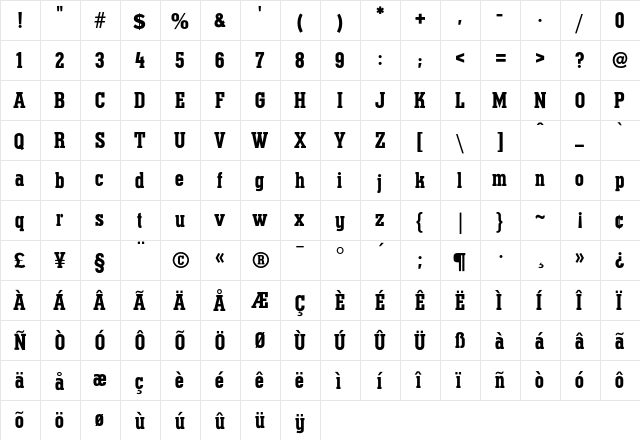
Luxor Regular Font Preview
Luxor Regular
Design Context for Luxor Typeface
Luxor takes a measured approach to typography — its balanced proportions and neutral character make it a reliable workhorse for both digital and print work.